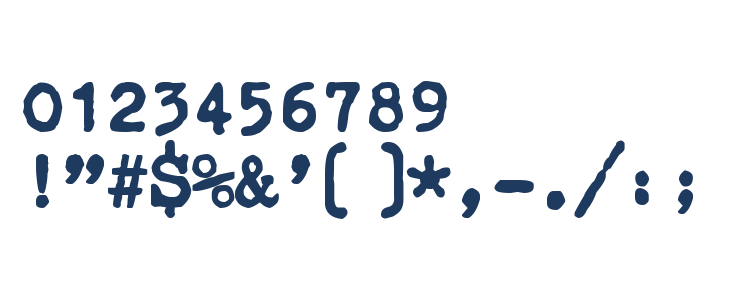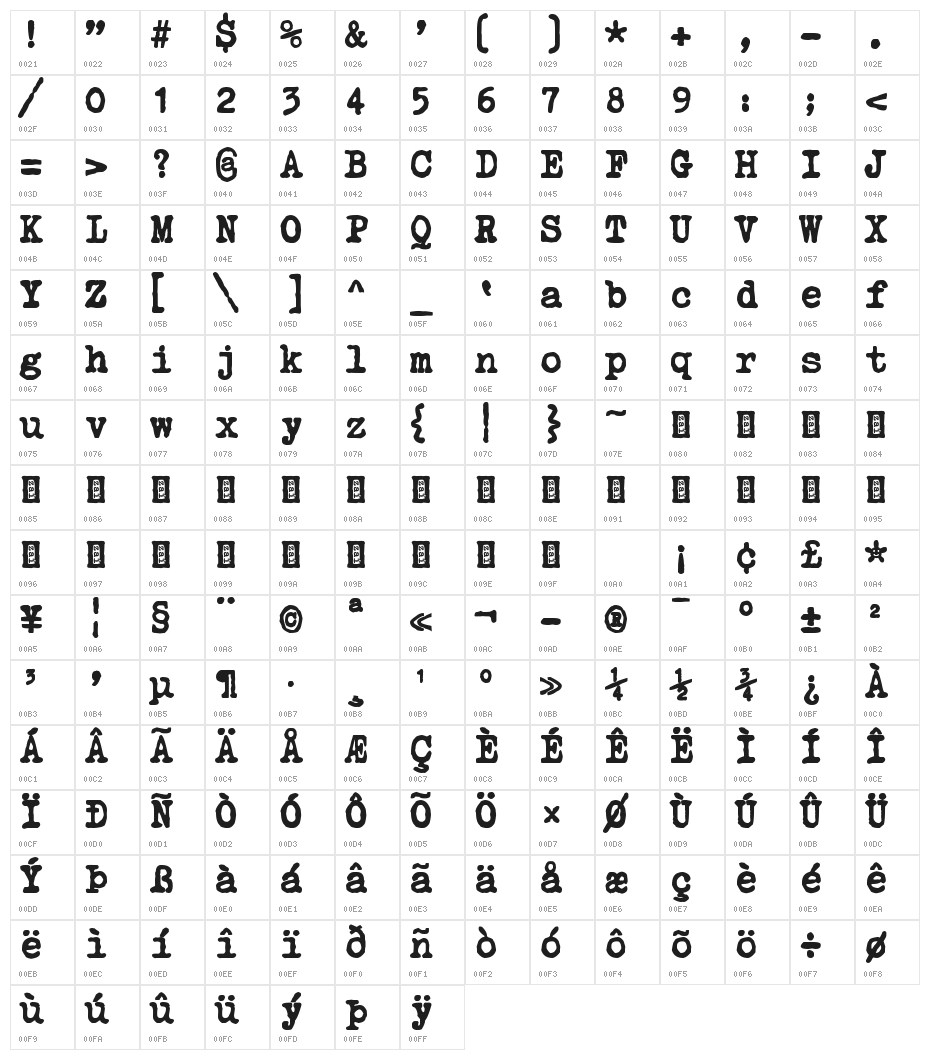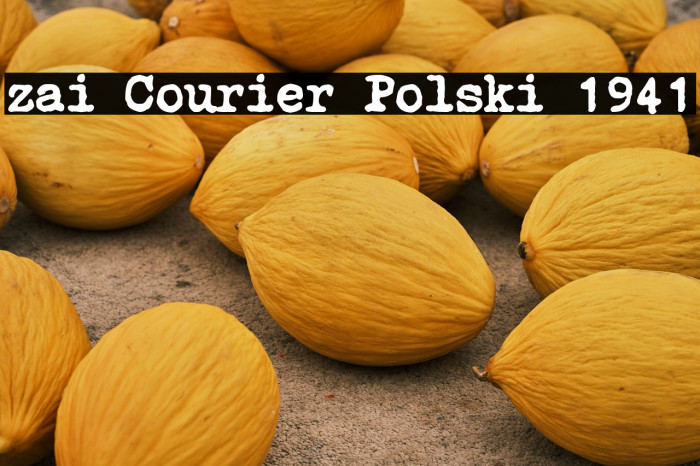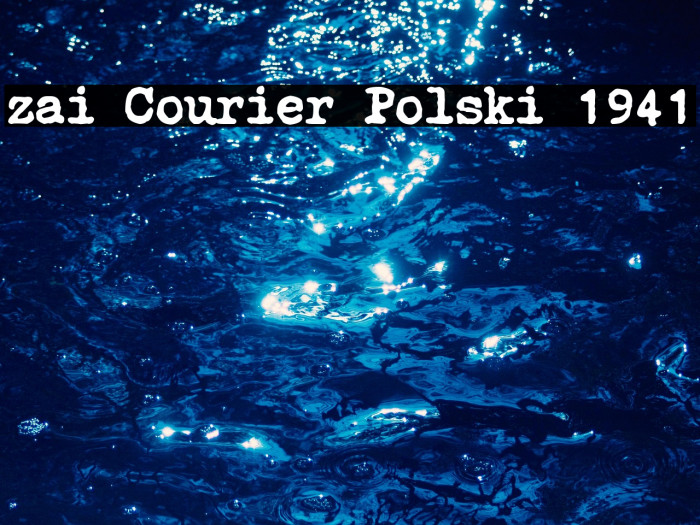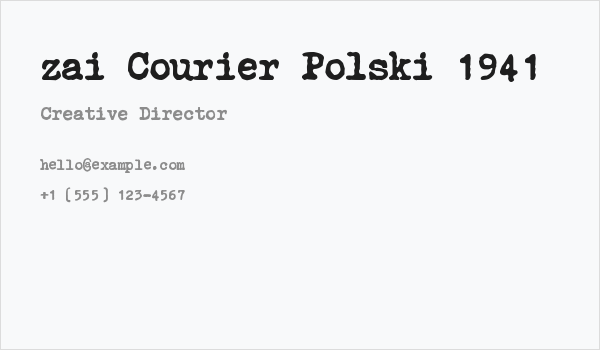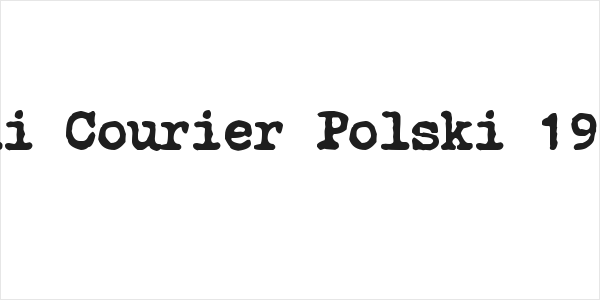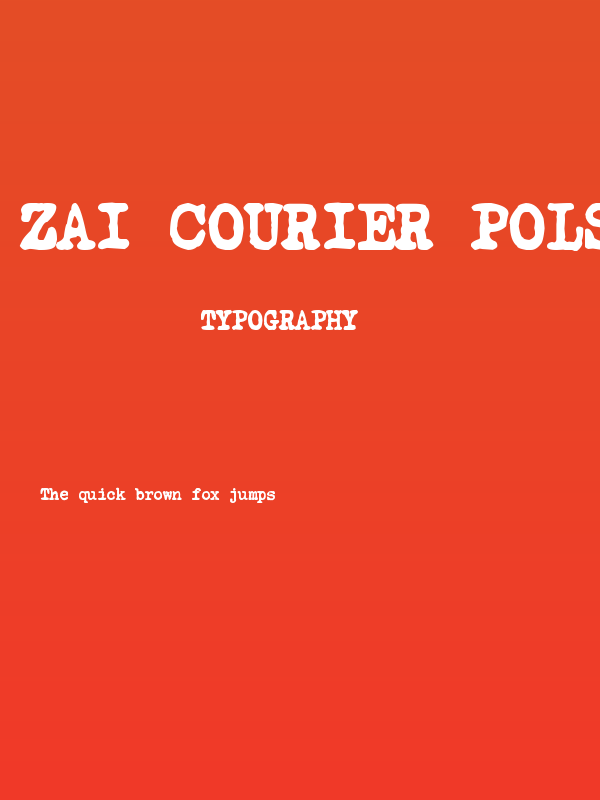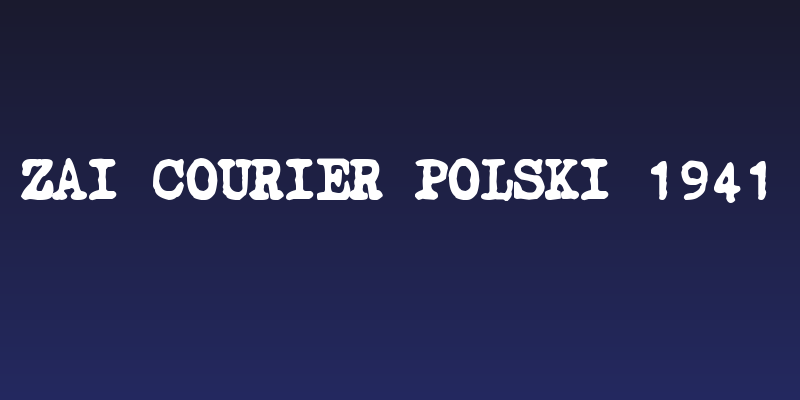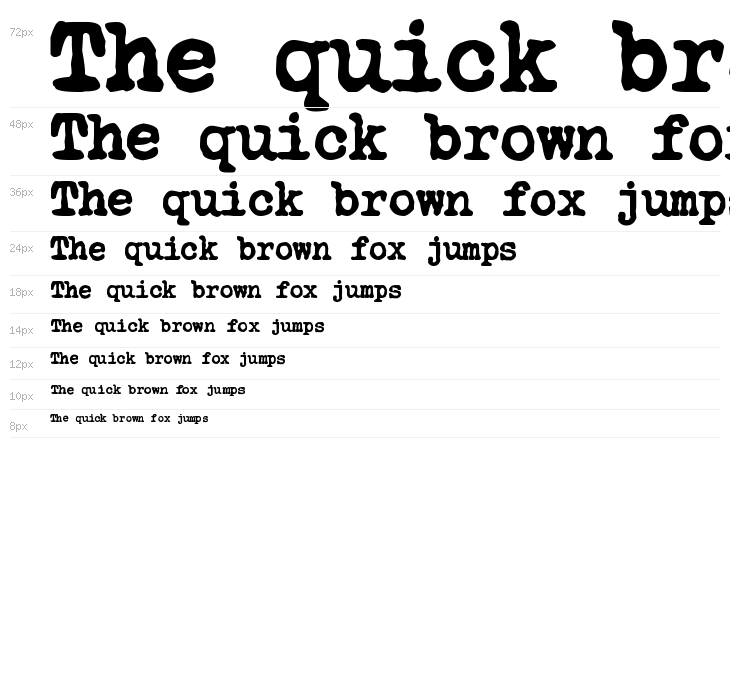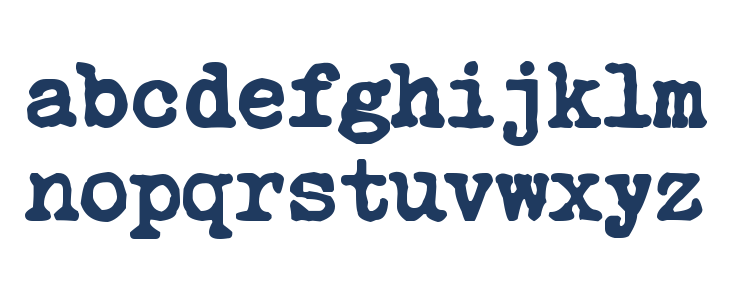
zai Courier Polski 1941 Font
zai Courier Polski 1941 Description
This font features a bold and distinctive style with a strong presence. The characters are thick and rounded, giving them a playful yet robust appearance. The uppercase letters are uniform in height, while the lowercase letters maintain a consistent baseline with slightly varying heights. The numbers are bold and easily readable, matching the overall style of the alphabet. Special characters are well-defined and integrate seamlessly with the rest of the font. The design is reminiscent of typewriter fonts, with a modern twist that adds a unique flair.
| Proposed Projects | Ideal for retro-themed designs, posters, branding, and any project requiring a bold, distinctive typeface. |